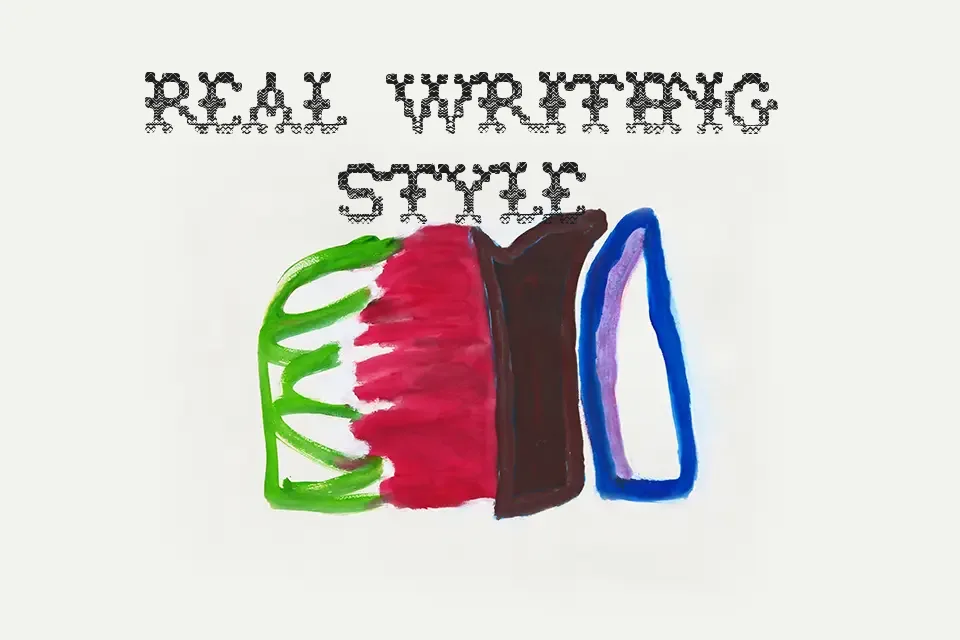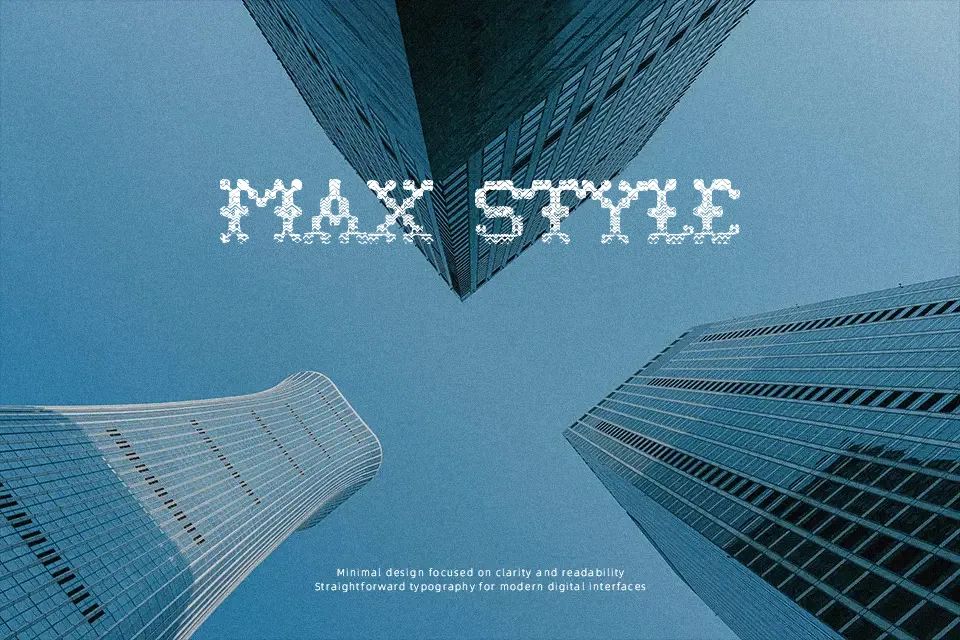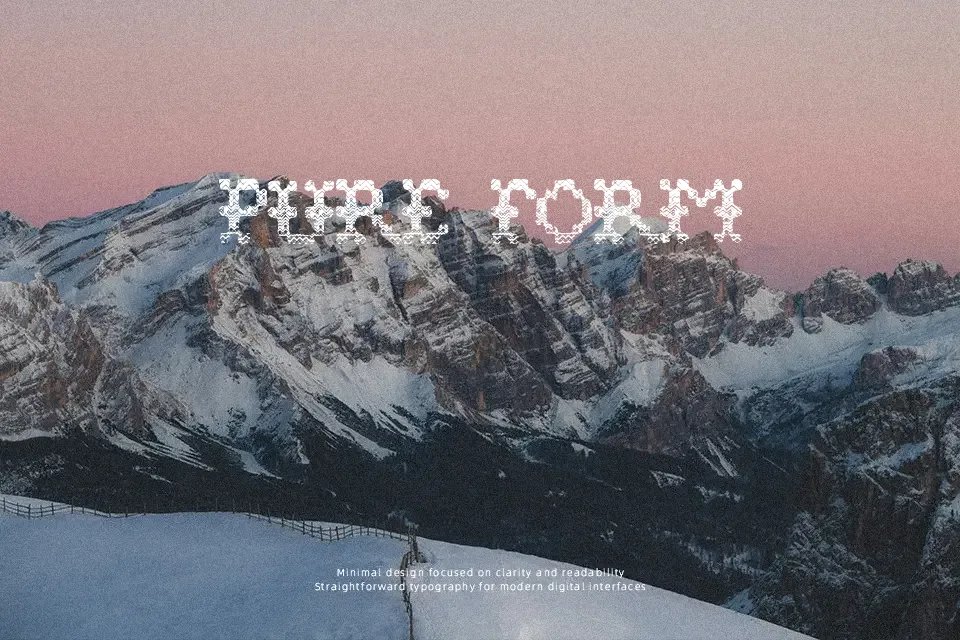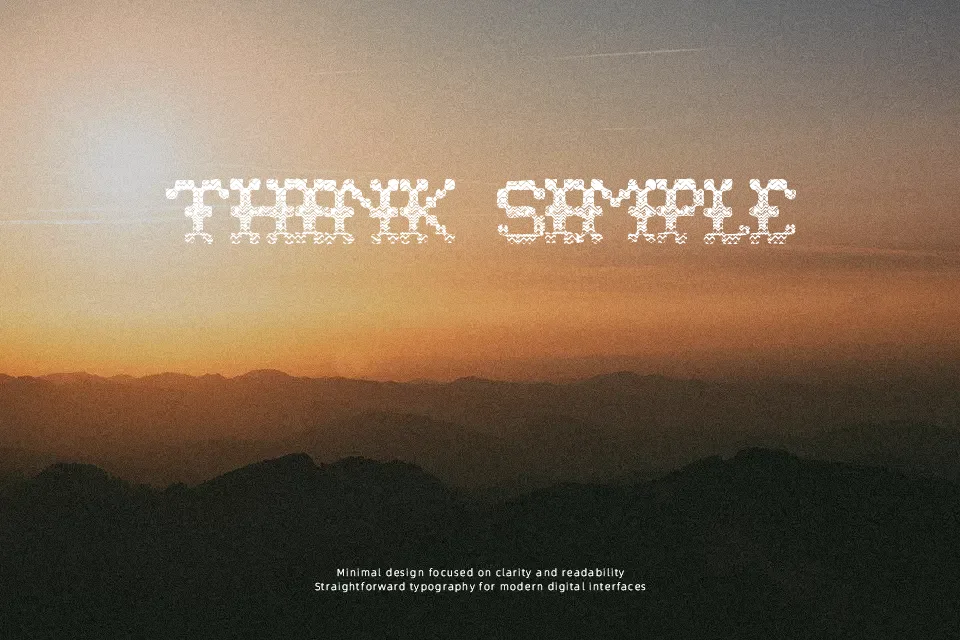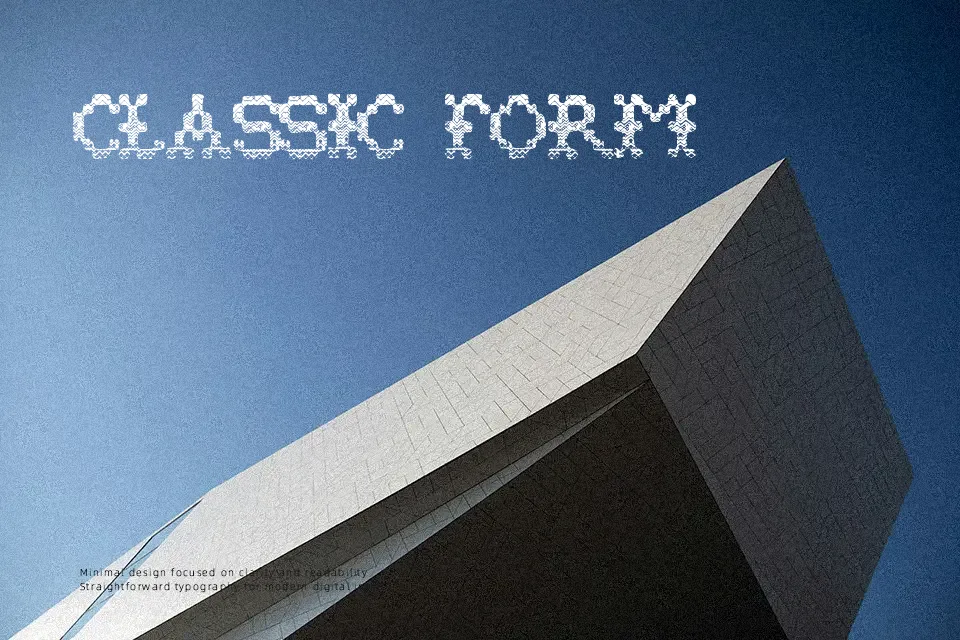
Alien Sweater Font
Alien Sweater leans into a distressed, sweater‑knit look, with chunky strokes, uneven edges, and loose spacing that instantly reads as odd, noisy, and a bit chaotic. It feels casual and decorative rather than polished, so it works when you want a messy alien vibe on posters, YouTube thumbnails, or novelty T‑shirts rather than clean branding. The shapes stay readable at medium sizes, but the rough texture and density quickly become tiring in paragraphs or data‑heavy layouts. Use it as a headline accent or logo wordmark for offbeat sci‑fi or horror themes; avoid relying on it for serious, professional communication where clarity and neutrality matter more.
sci-fi or horror movie posters
party flyers with alien or space themes
gaming overlays and stream titles
novelty T-shirt or merchandise slogans
long paragraph text or articles
formal corporate reports and presentations
small UI labels or dense app interfaces
minimal, clean branding systems
Perfect for film, gaming, and halloween, with a artistic and decorative style.